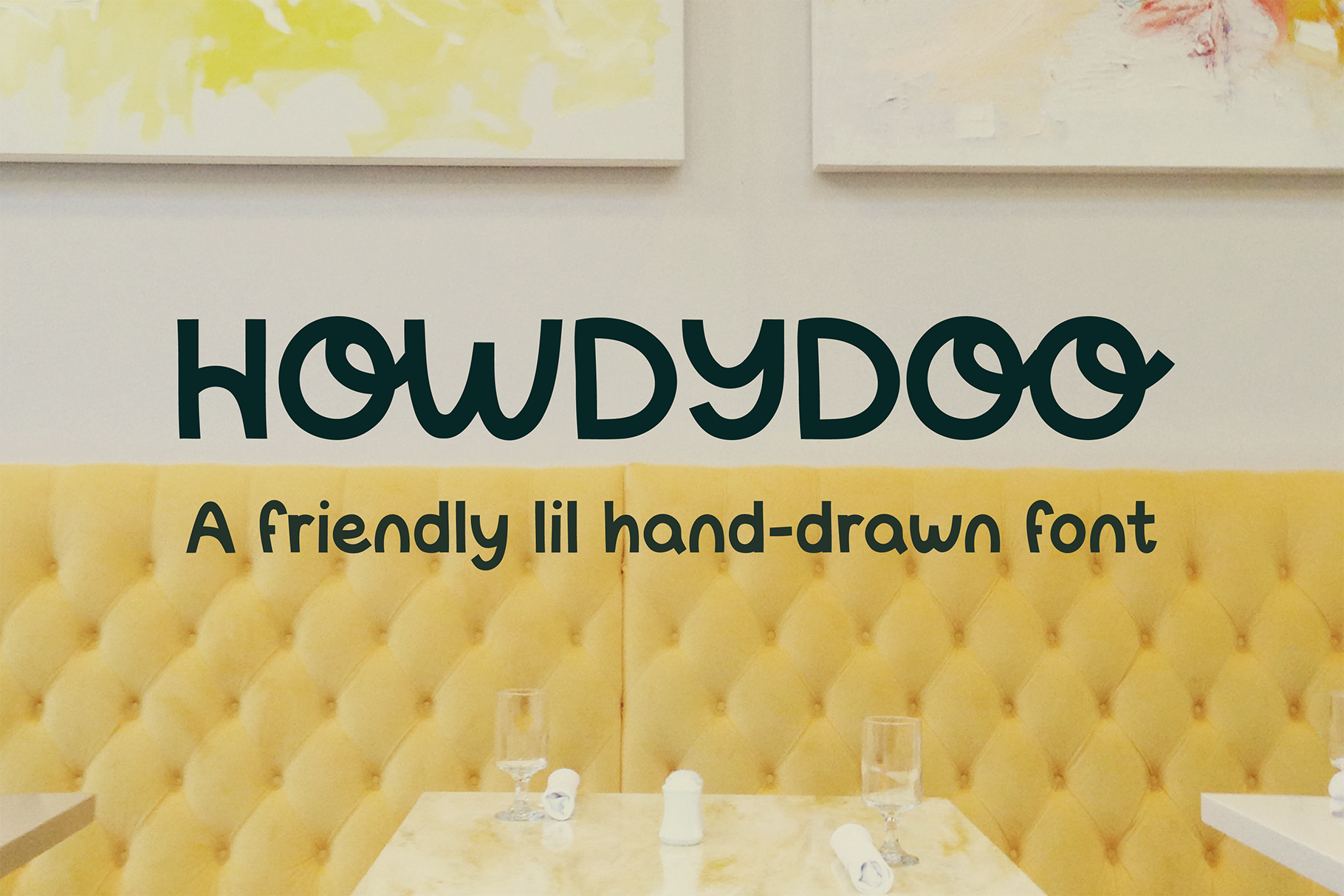
Howdydoo - Quirky hand drawn font
Introducing Howdydoo, a quirky little hand-drawn font with a full set of capital alternates. Includes numbers and extended character set. OTF file.